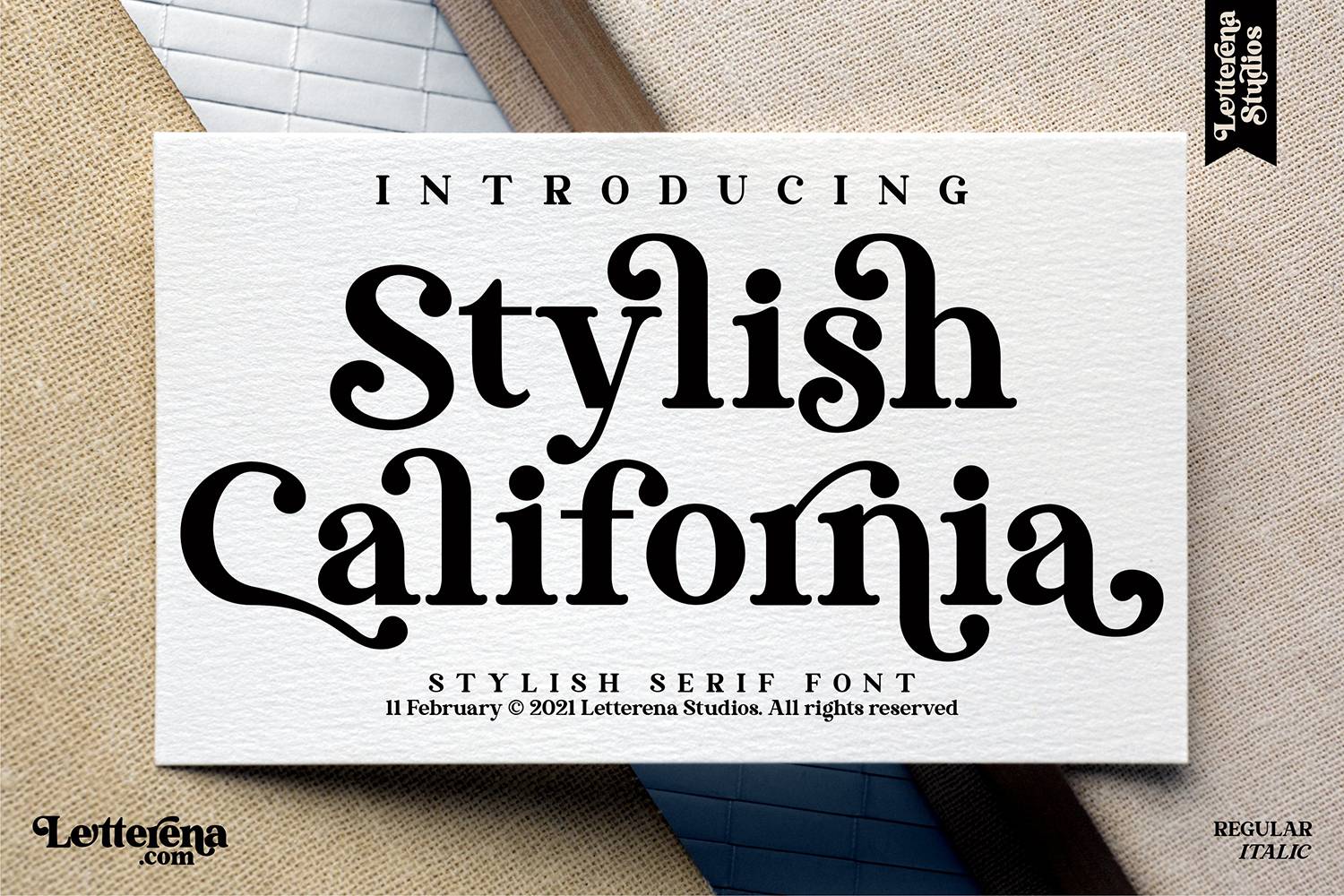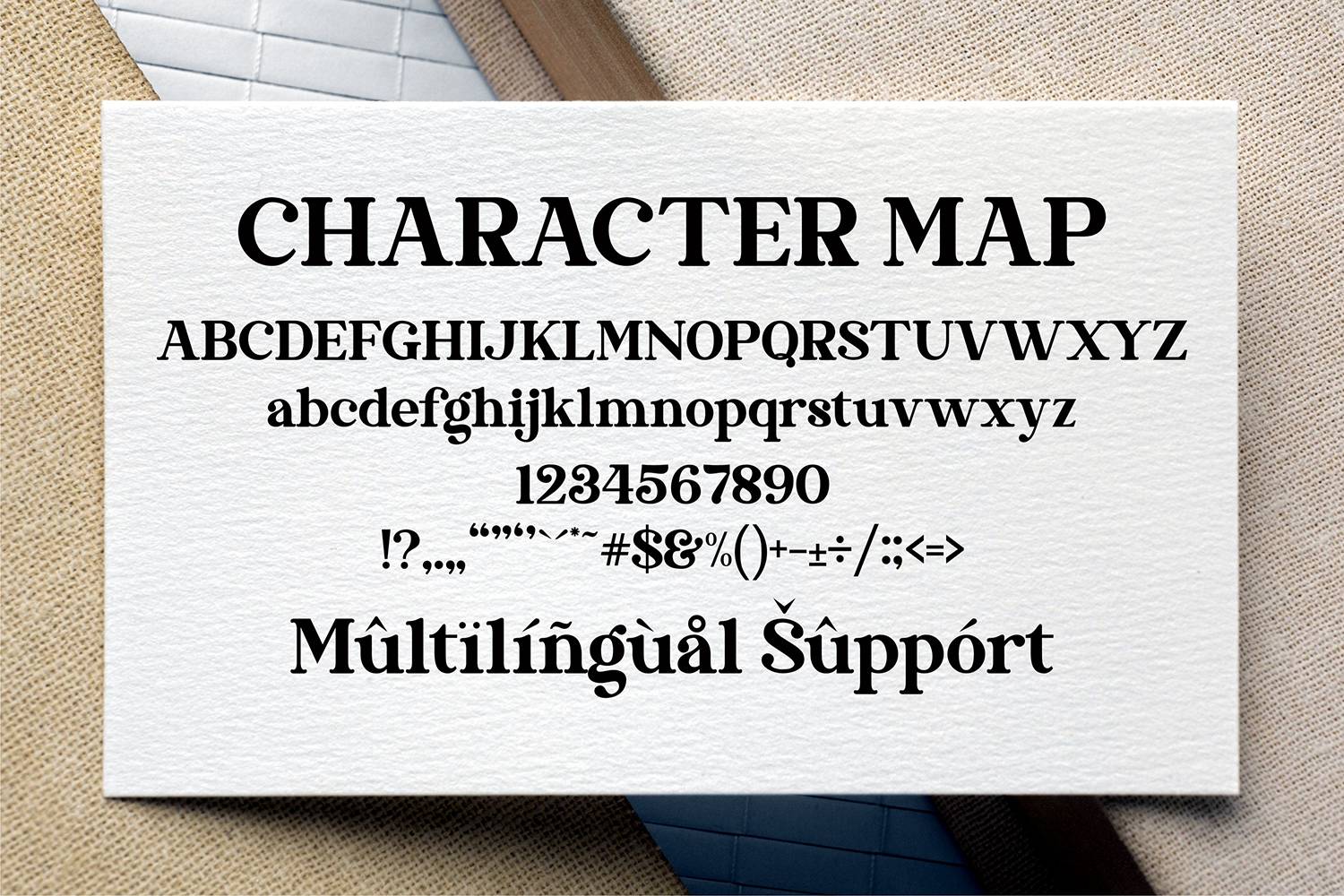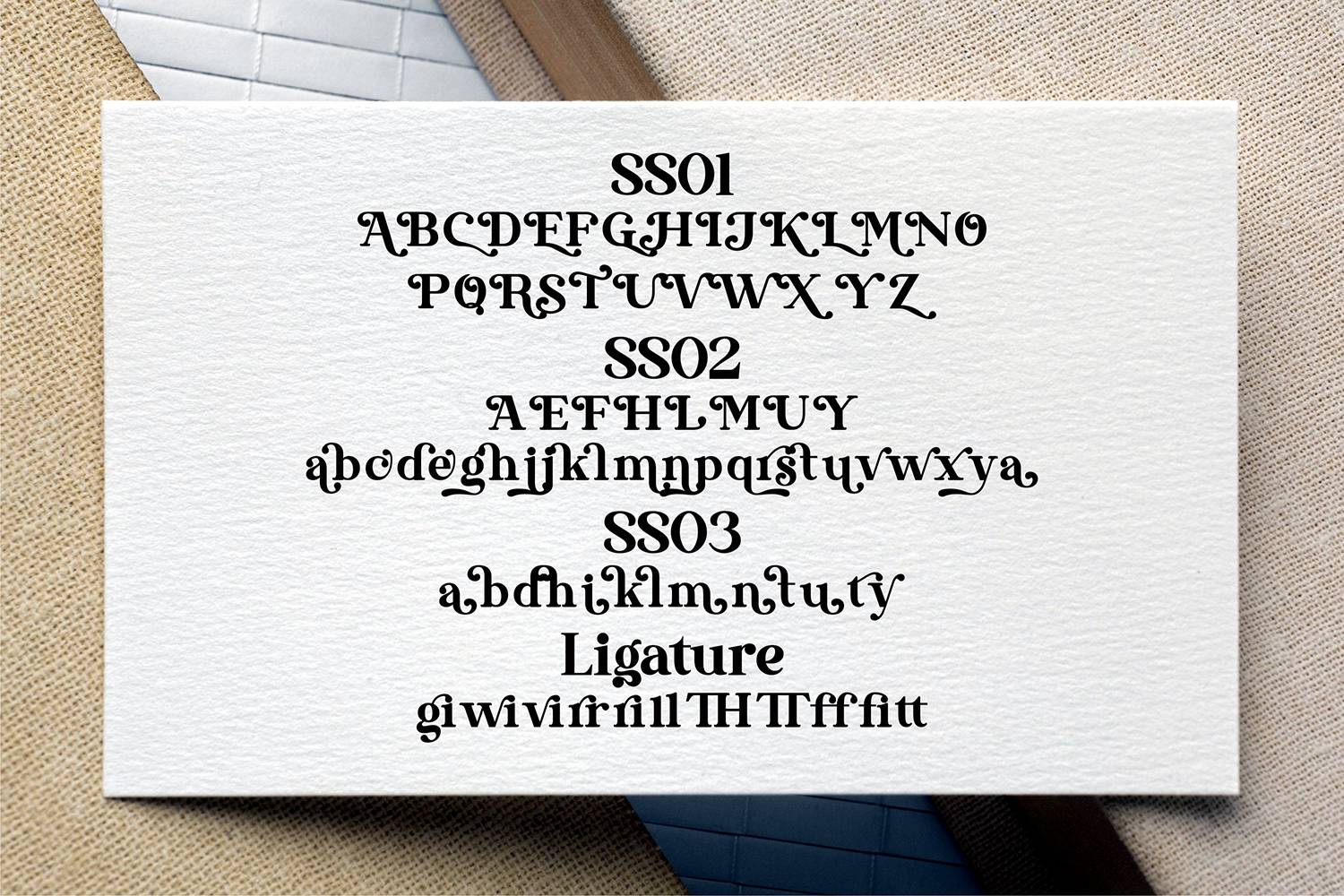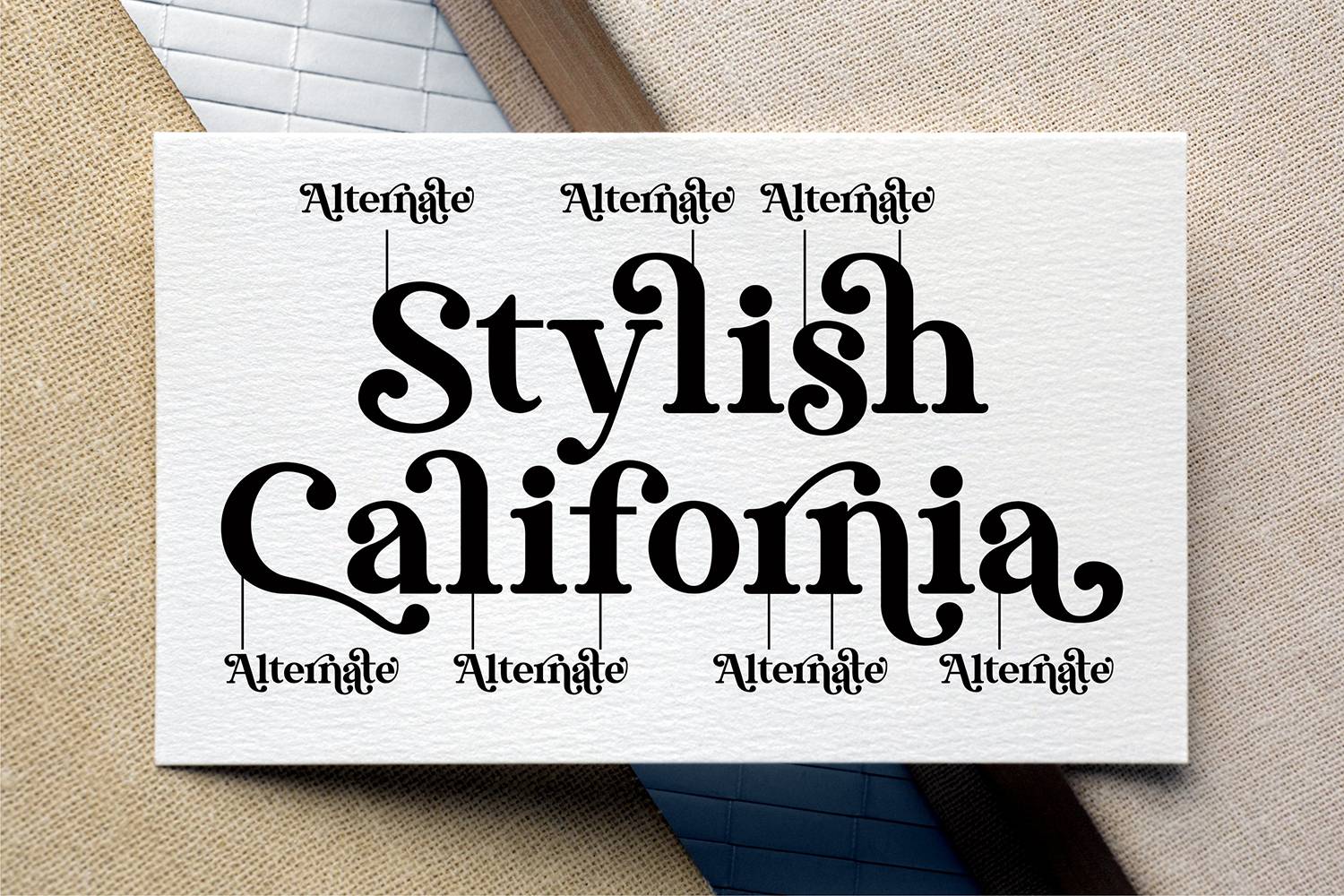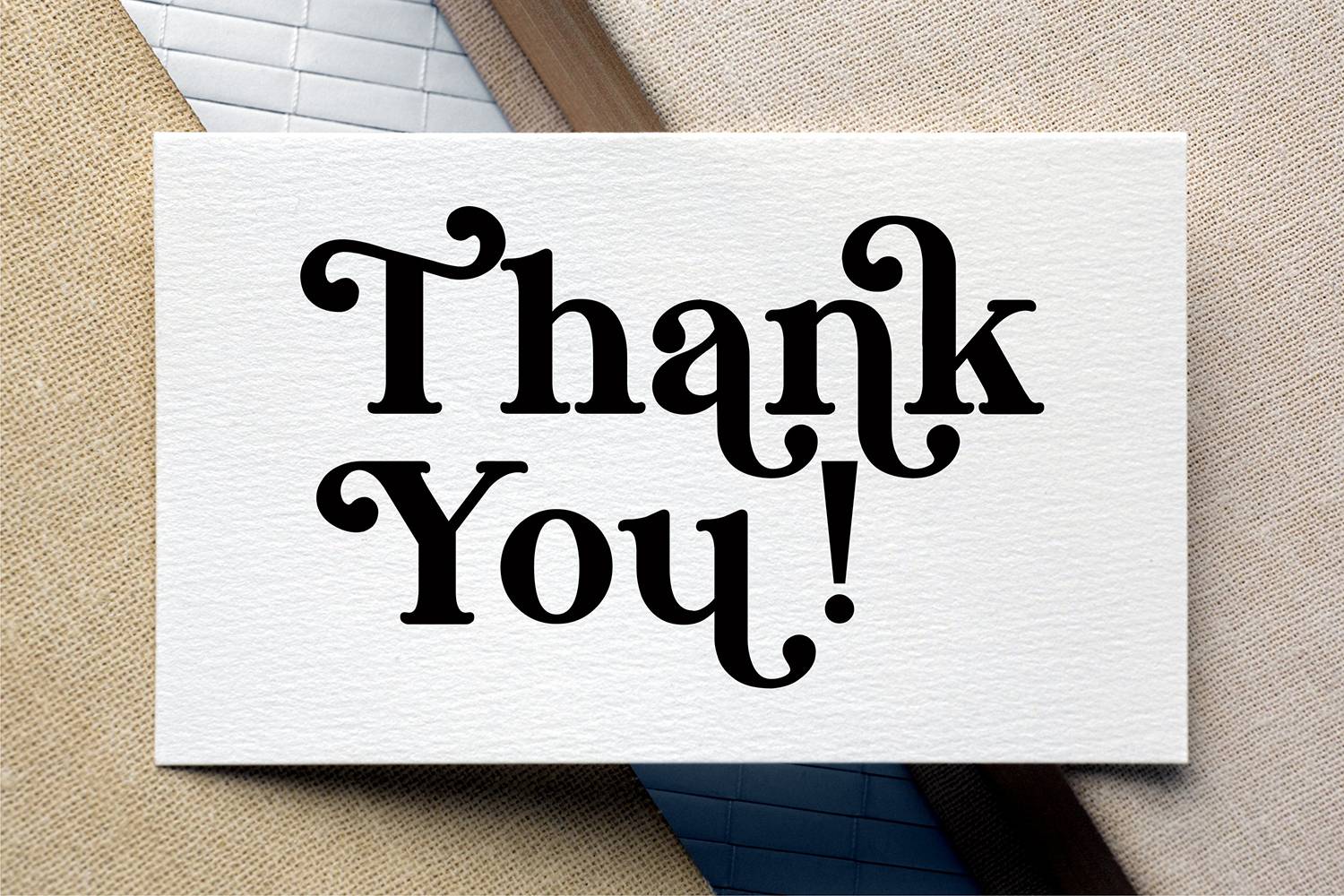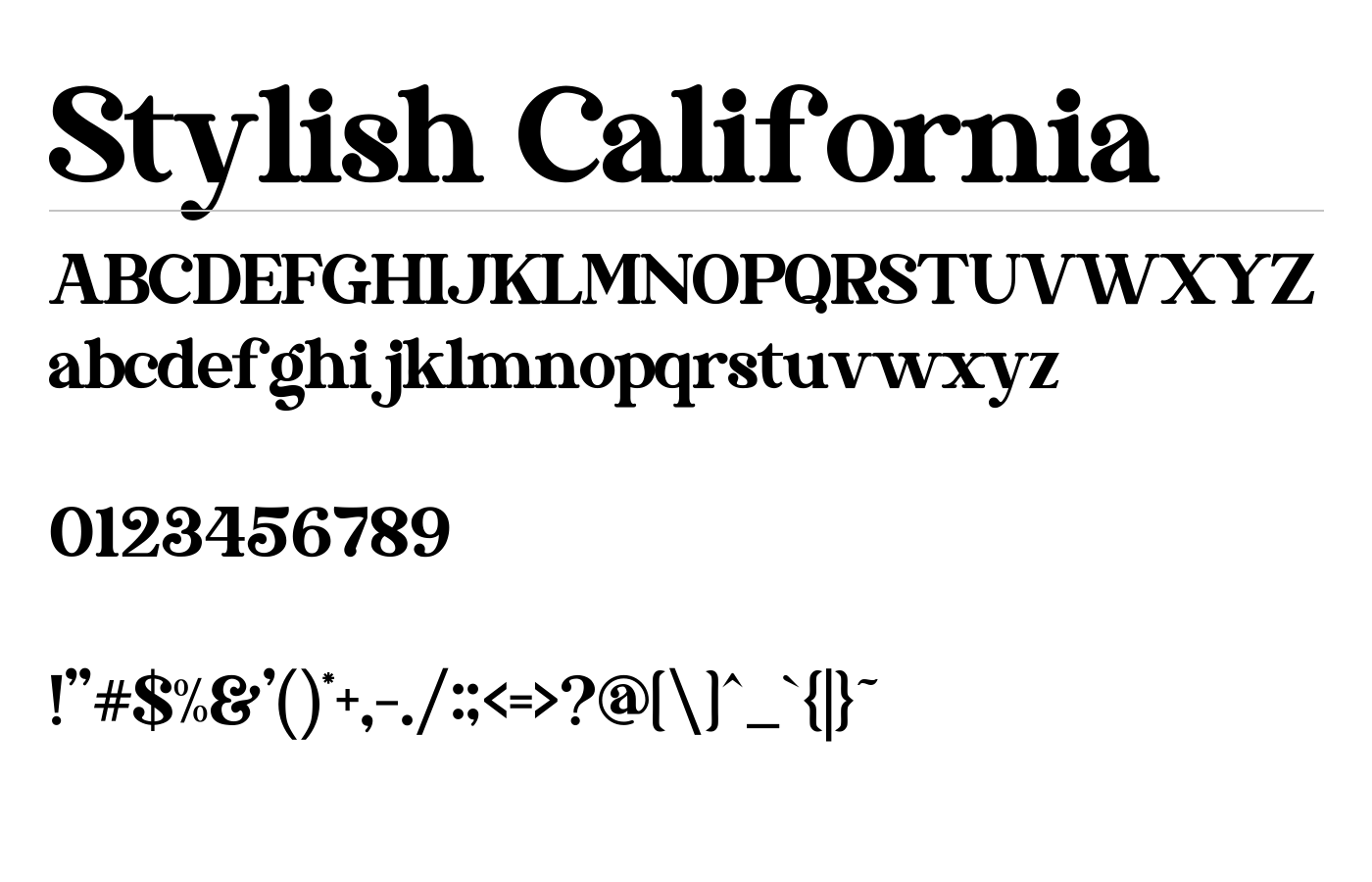
Stylish California is a distinctive serif font with a strong personality, combining high contrast strokes and bracketed serifs for a classic yet bold look. Its medium weight and moderate x-height create a balanced, readable style that works beautifully for elegant headlines, branding, and editorial use where a touch of sophistication and vintage charm is desired. This font is ideal for fashion, luxury packaging, and upscale print projects that seek to convey tradition with a modern twist.
Stylish California Font